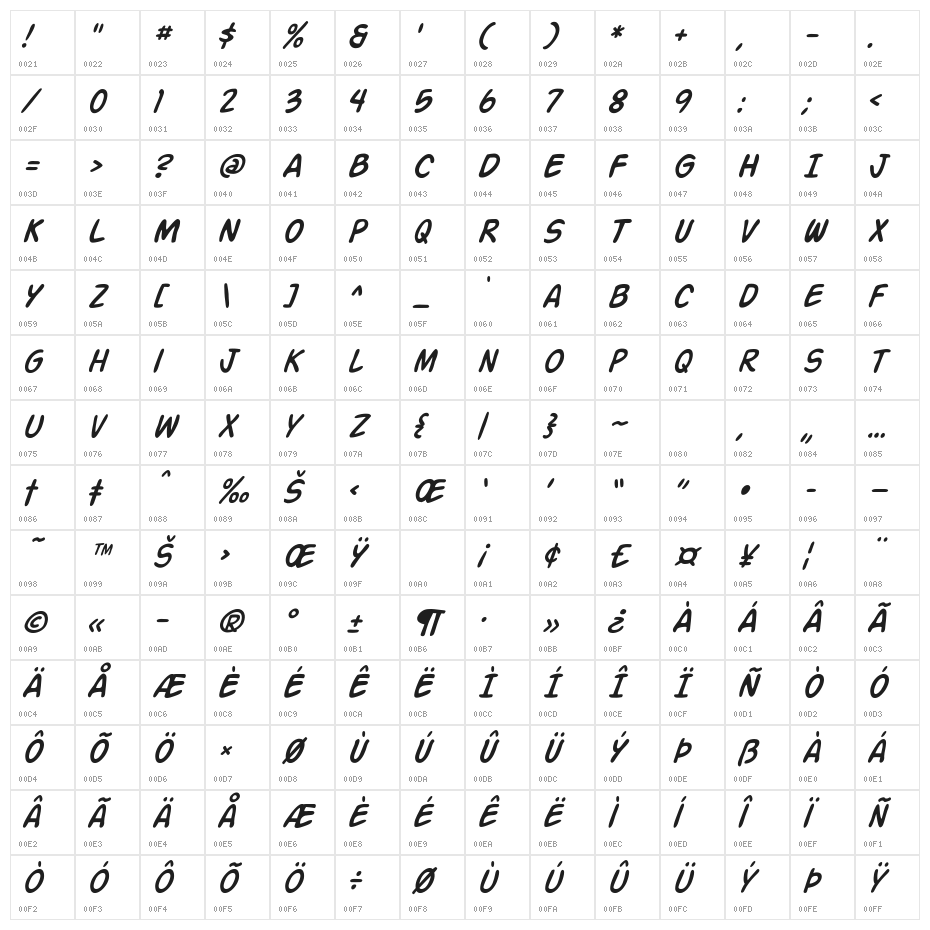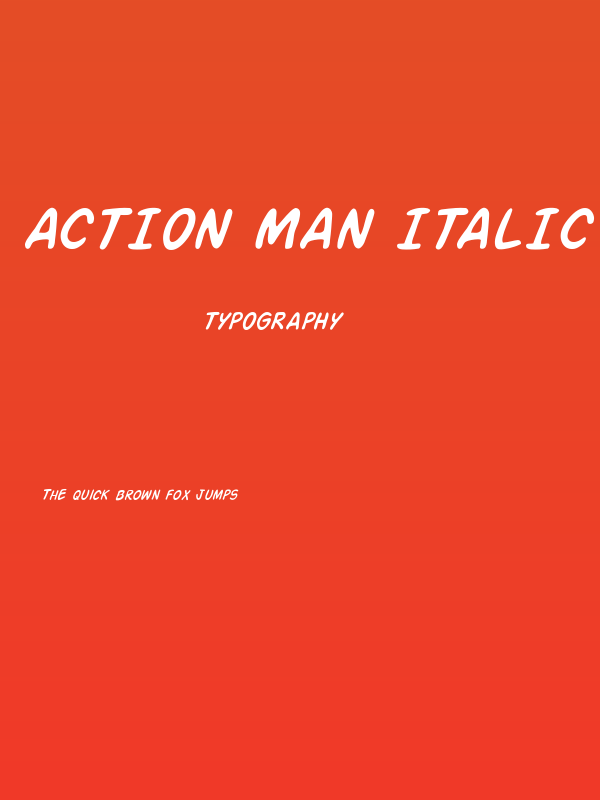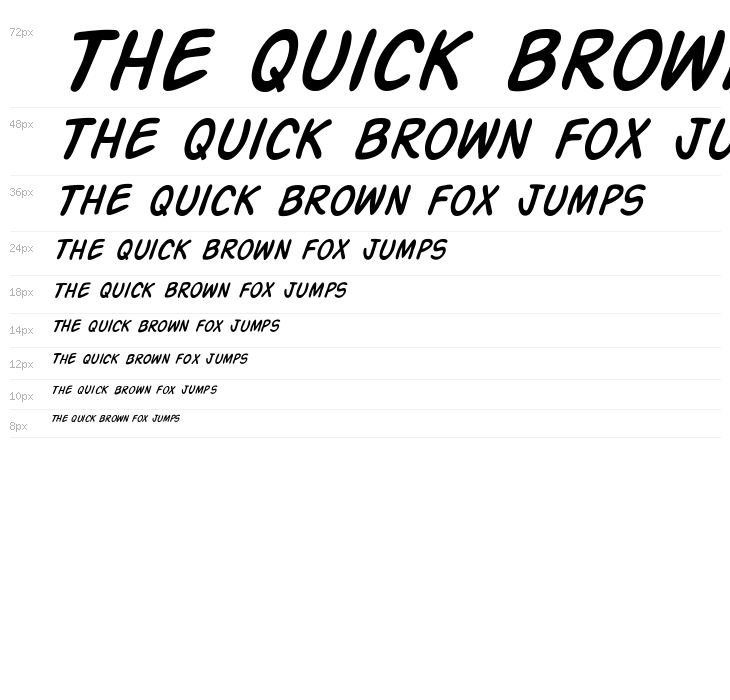
Action Man Italic Font
Action Man Italic Description
This font features a dynamic and energetic style, characterized by its italicized, handwritten appearance. The letters are slightly slanted, giving a sense of motion and fluidity. The strokes are bold and consistent, providing a strong visual impact. Each character is well-defined with smooth curves and rounded edges, enhancing its readability. The numbers and special characters maintain the same lively and informal aesthetic, making it suitable for creative and expressive design projects.